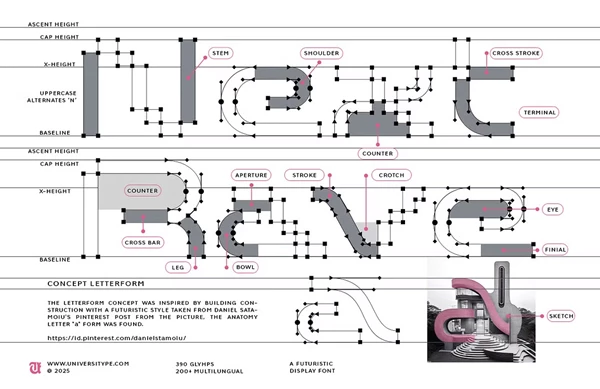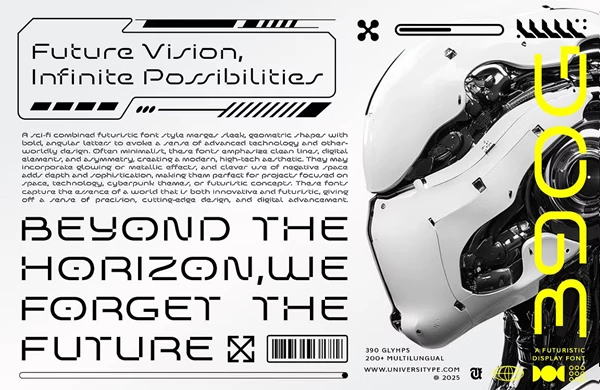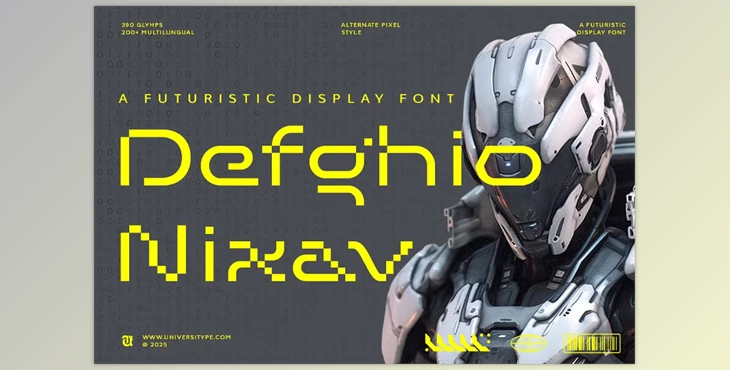
UT Defghio Nixav : A Futuristic Font:
UT Defghio Nixav is an innovative display font that looks to fill the gap between advanced technology and forward-looking futurism. This typeface features glowing metallic effects, angular bolder builds, and a minimalistic approach with sophistication from asymmetry and negative space. It is aimed towards visionary projects such as tech interfaces, sci-fi themes, and innovative branding. This font is ideal for everything from films to digital art and video games.
Some great features of UT Defghio Nixav : A Futuristic Font:
- Extensive Character Set: Comes with 390 glyphs, which provides an excellent level of customization for typography.
- Global Reach: Supports more than 200 languages and thus provides more reach to people worldwide.
- Unique Pixel Style: Comes with alternate pixelated variants giving a retro-futuristic or digital look.
- Innovative Design: Designed with sleek geometry, clean lines, and bold angles that deliver a smooth, high-tech look.
- Asymmetry, Negative Space: Provides modern elegance alongside depth and sophistication.
- Language Support: Covers scripts based on Latin alphabet accommodating Western, Central and Eastern European languages.